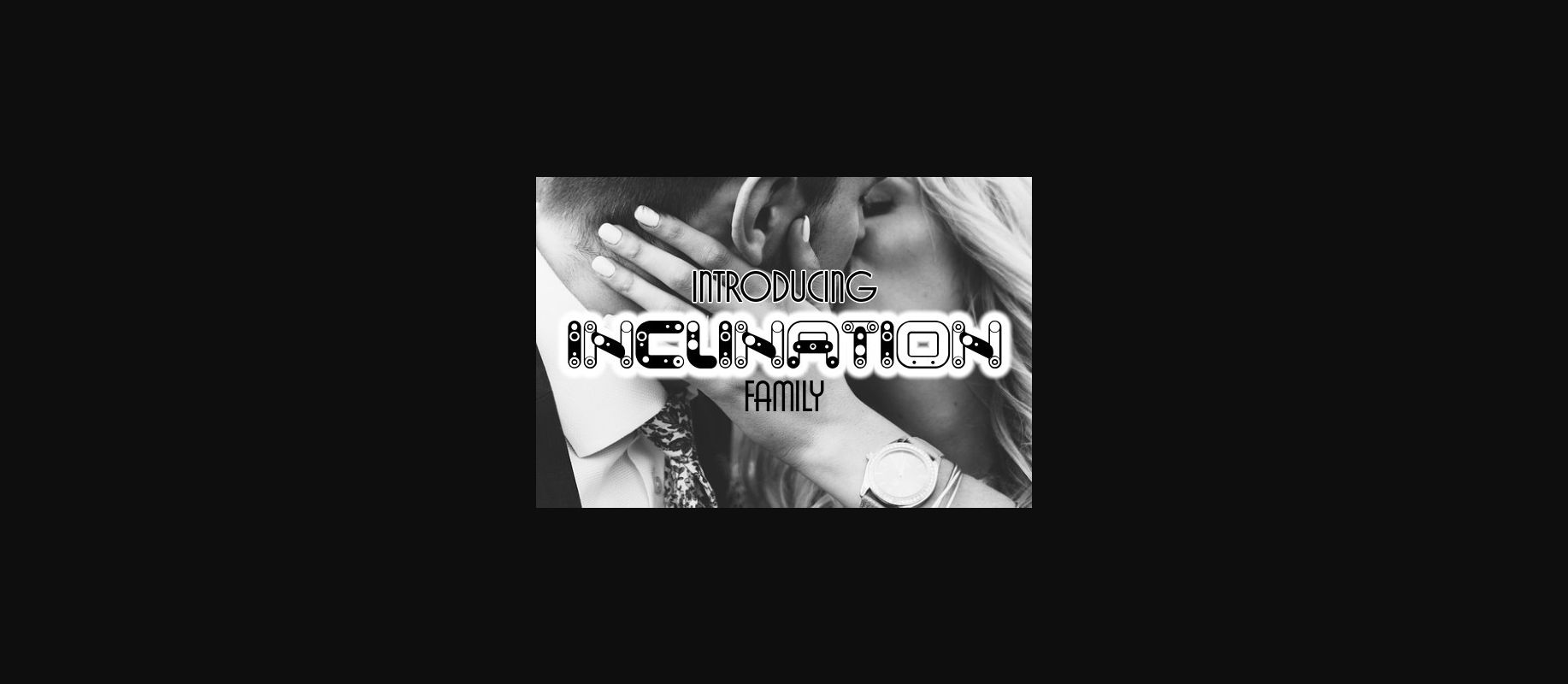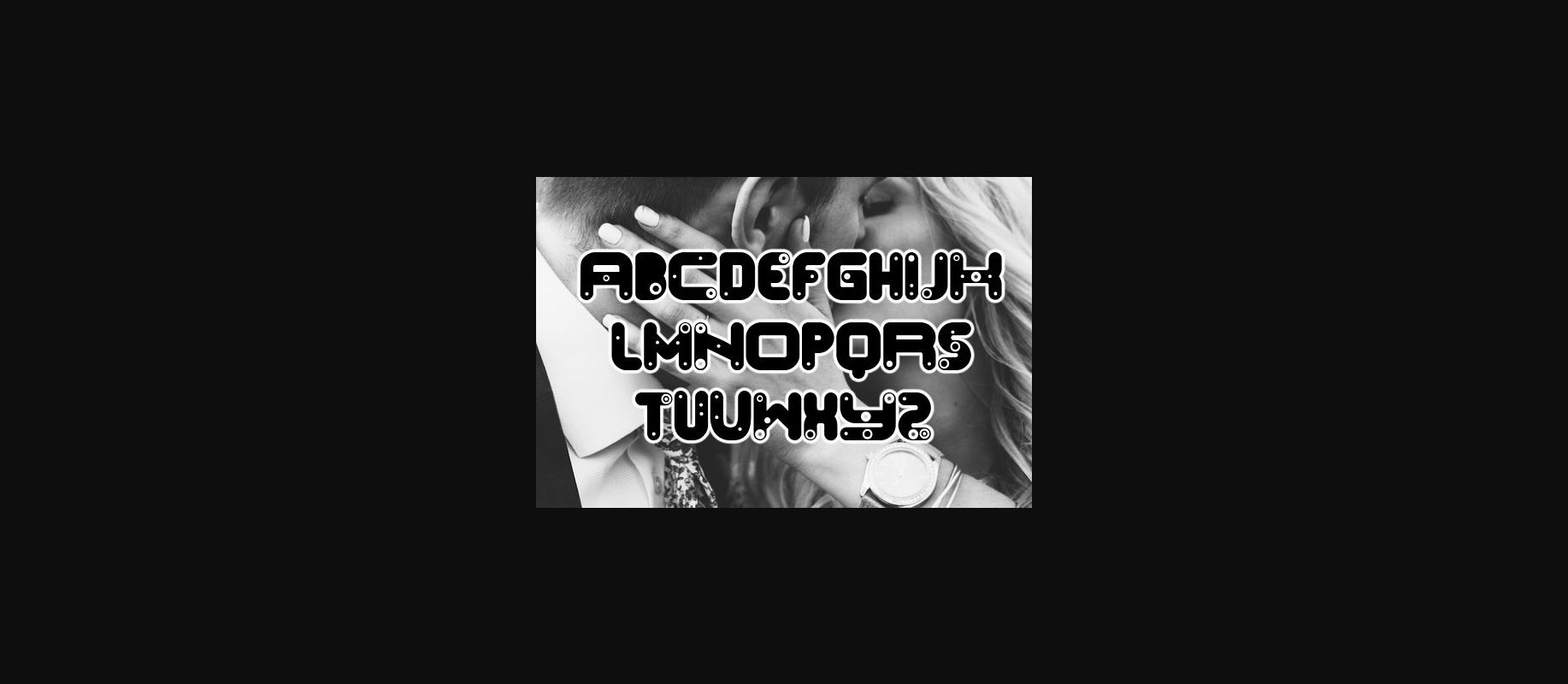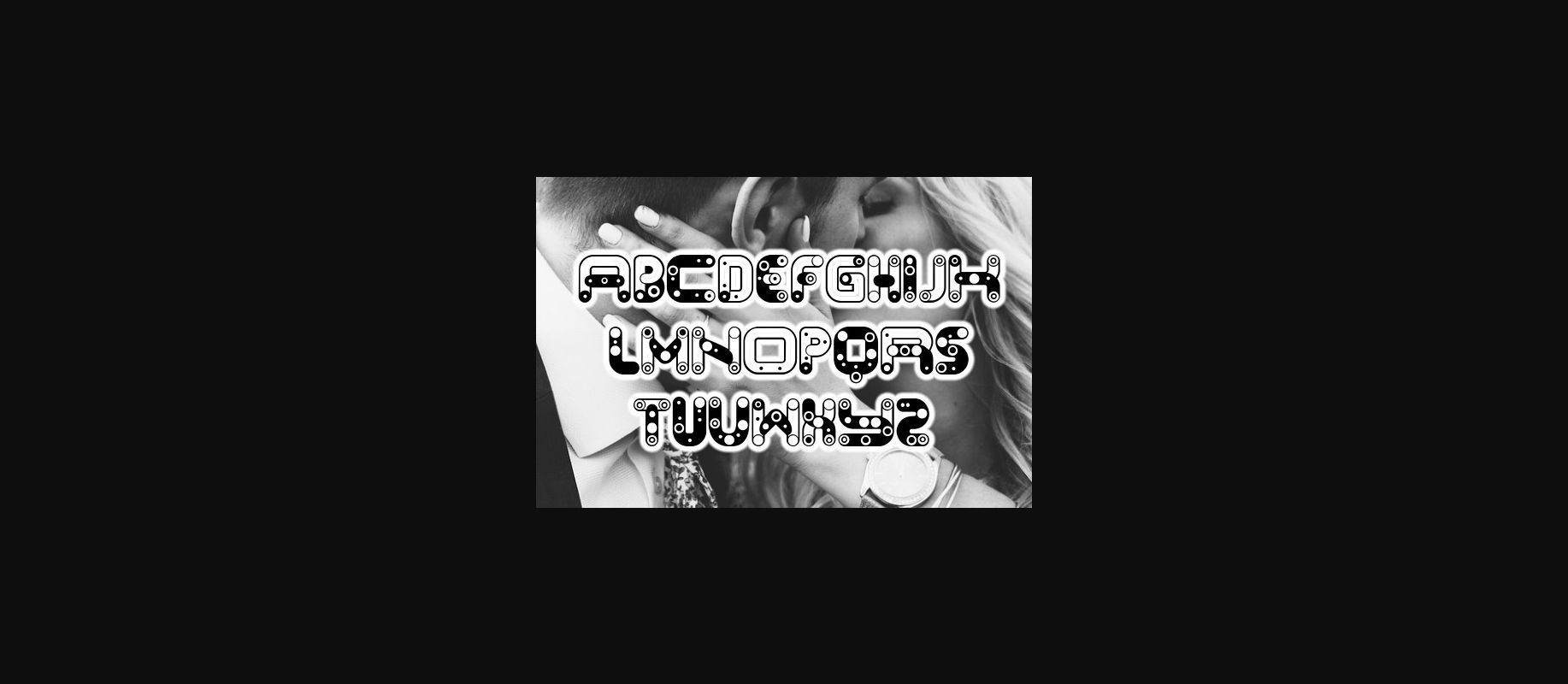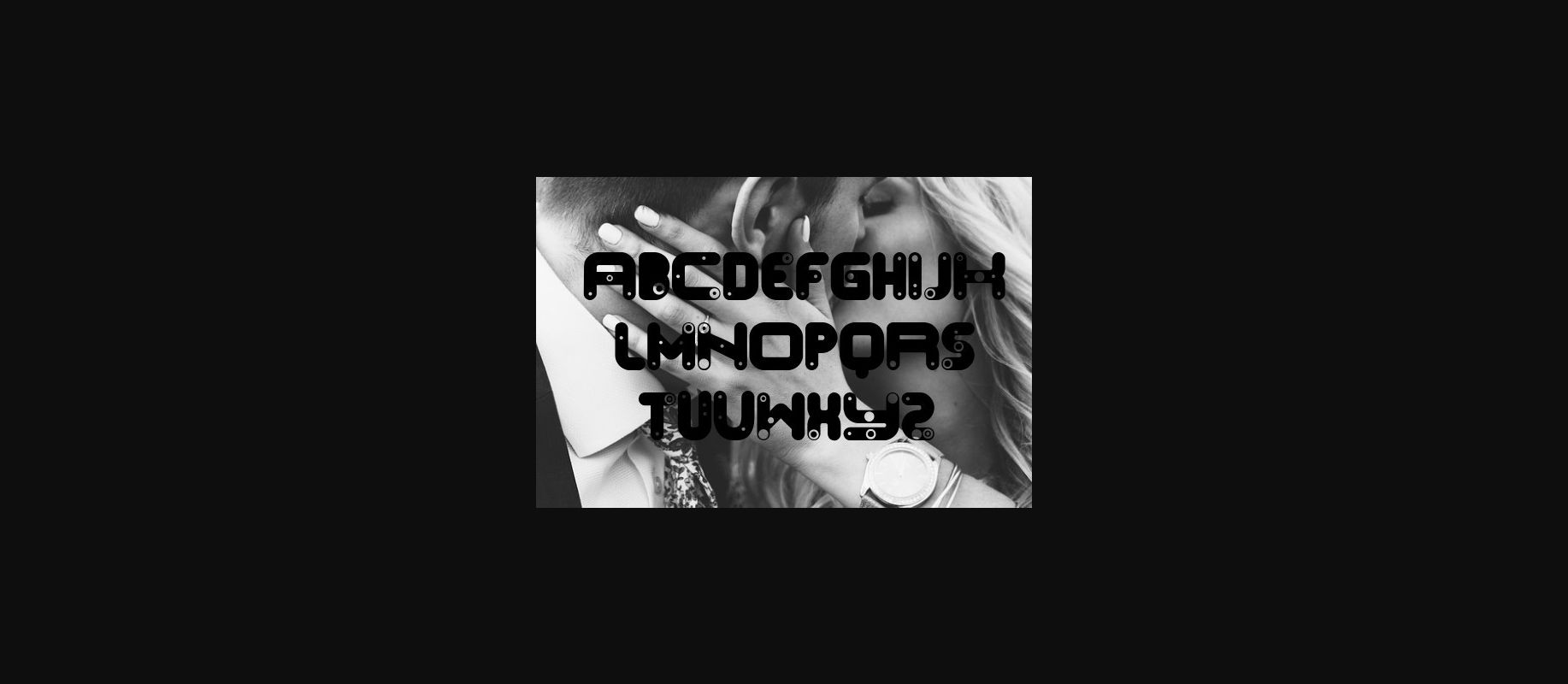
Inclination Font
About Inclination Font
Inclination is an awesome and uniquely designed decorative font that will fit perfectly on each of your designs. Have fun with this beautiful font and explore its endless variations.